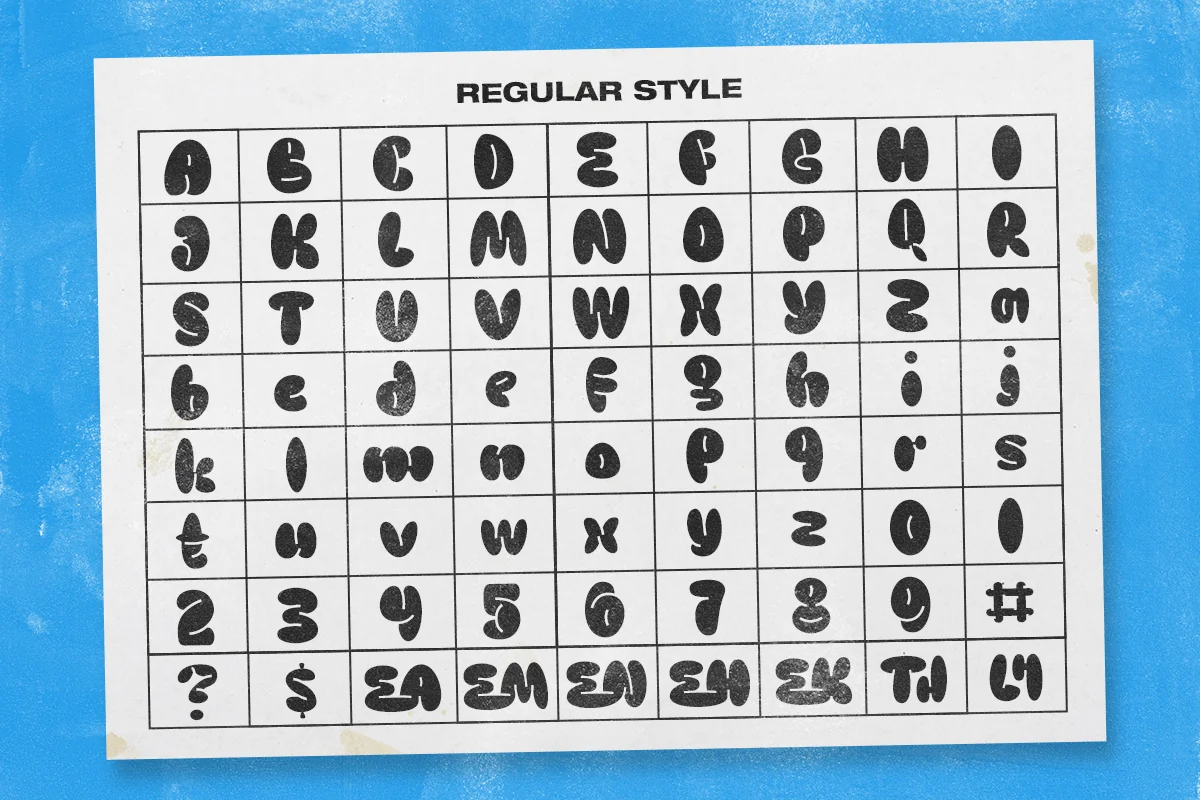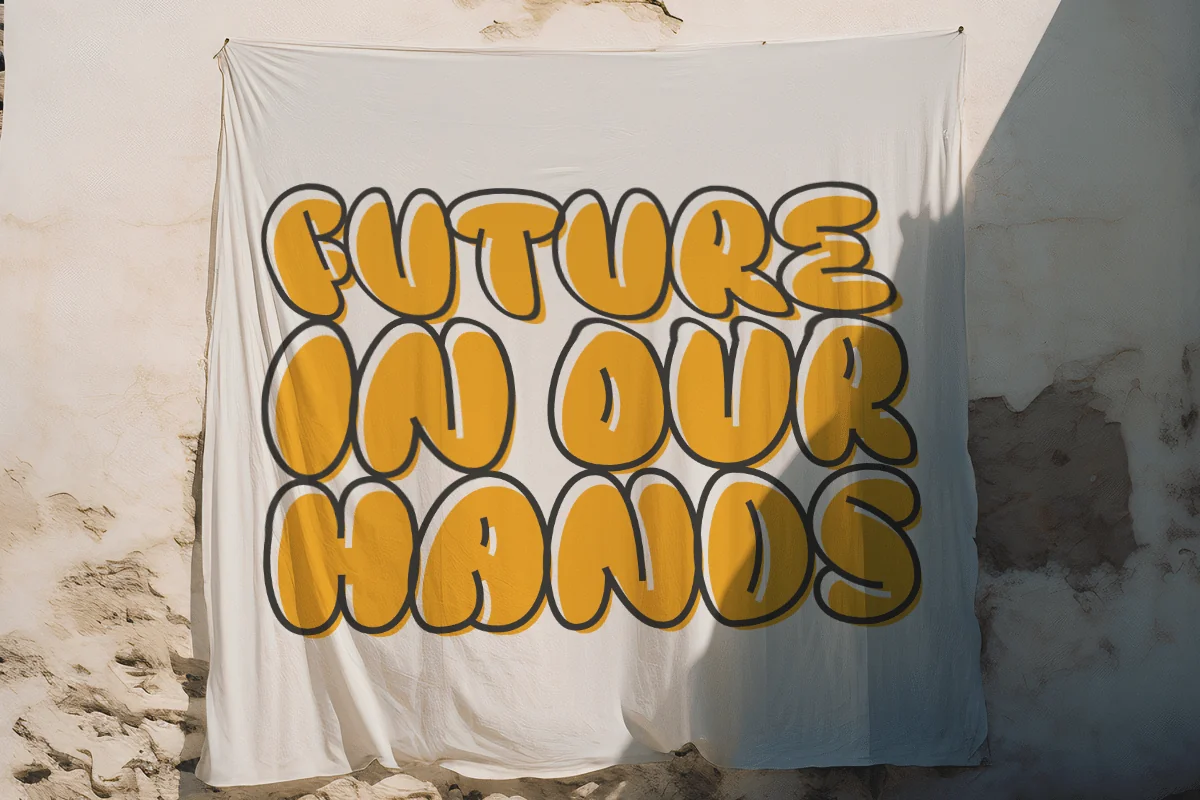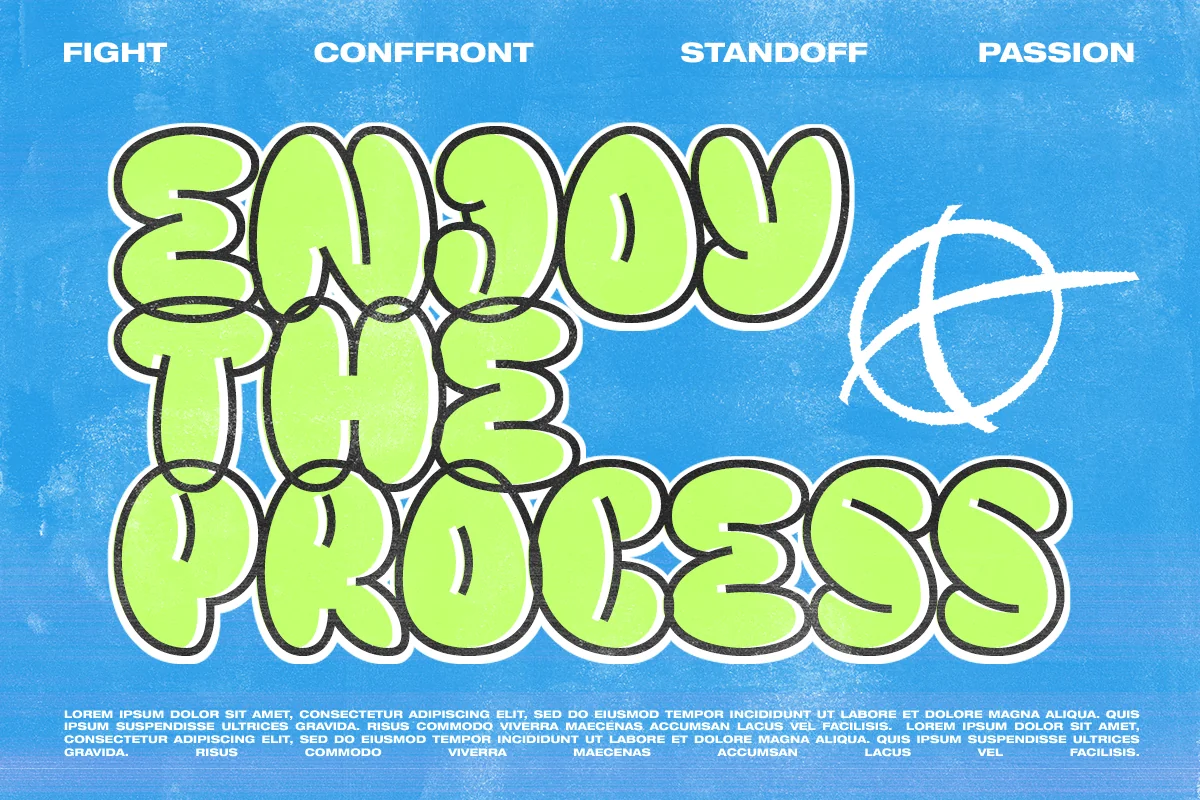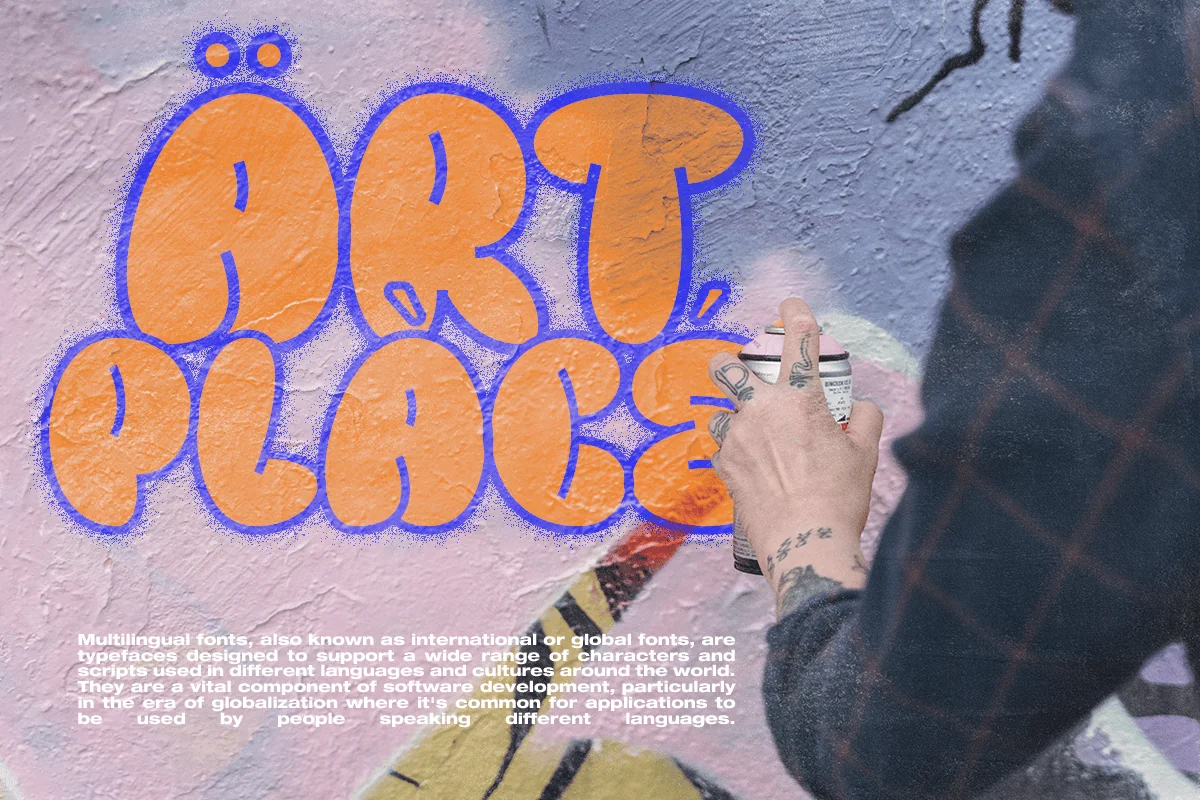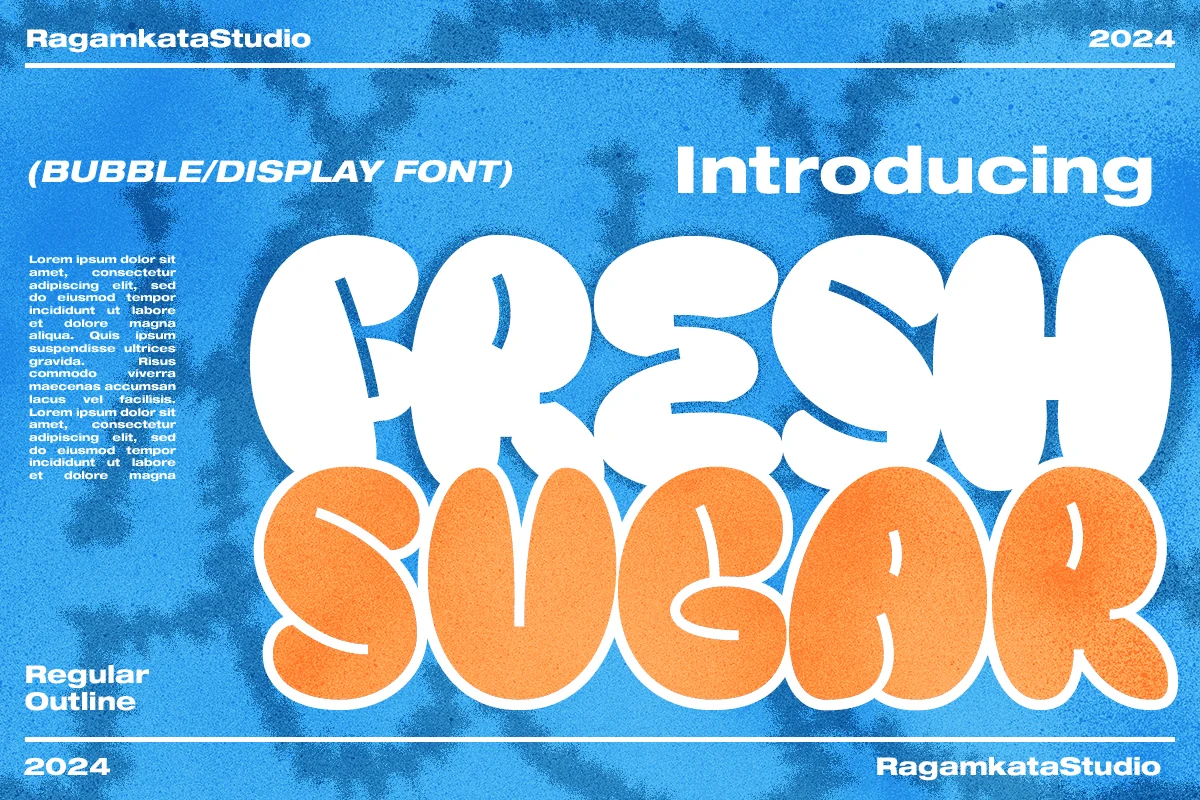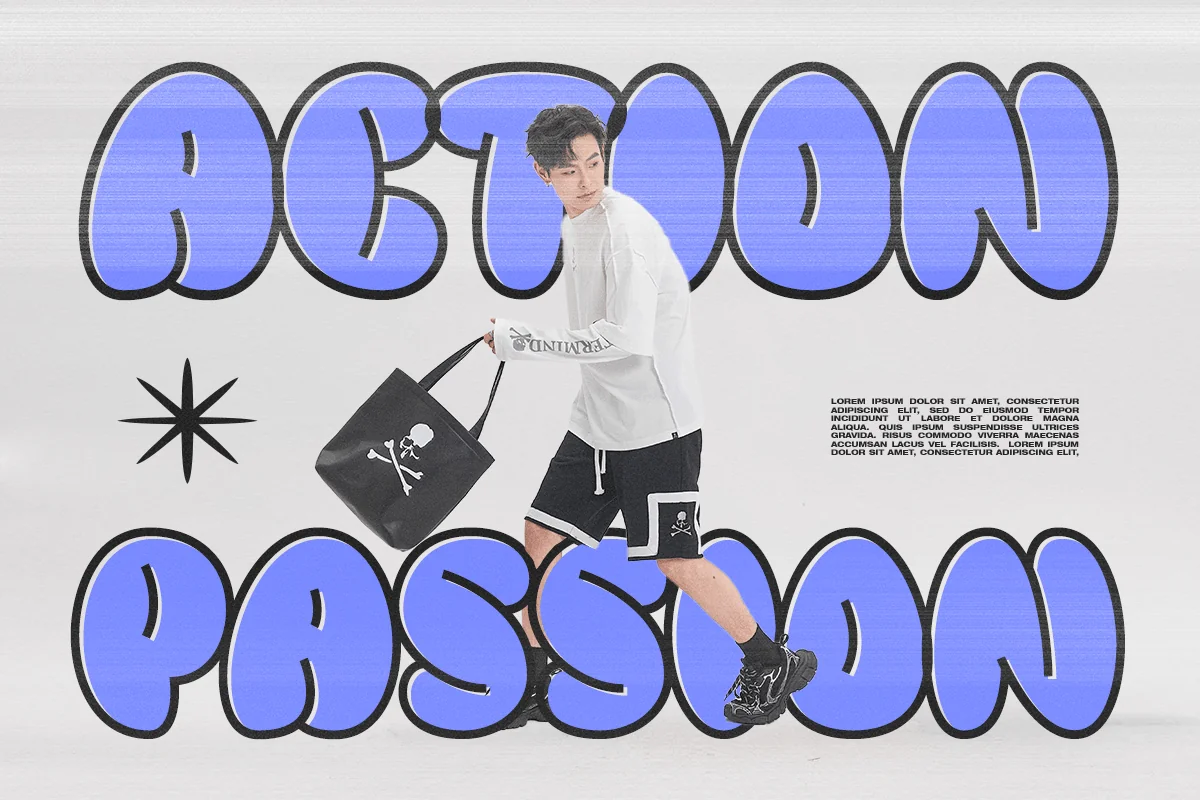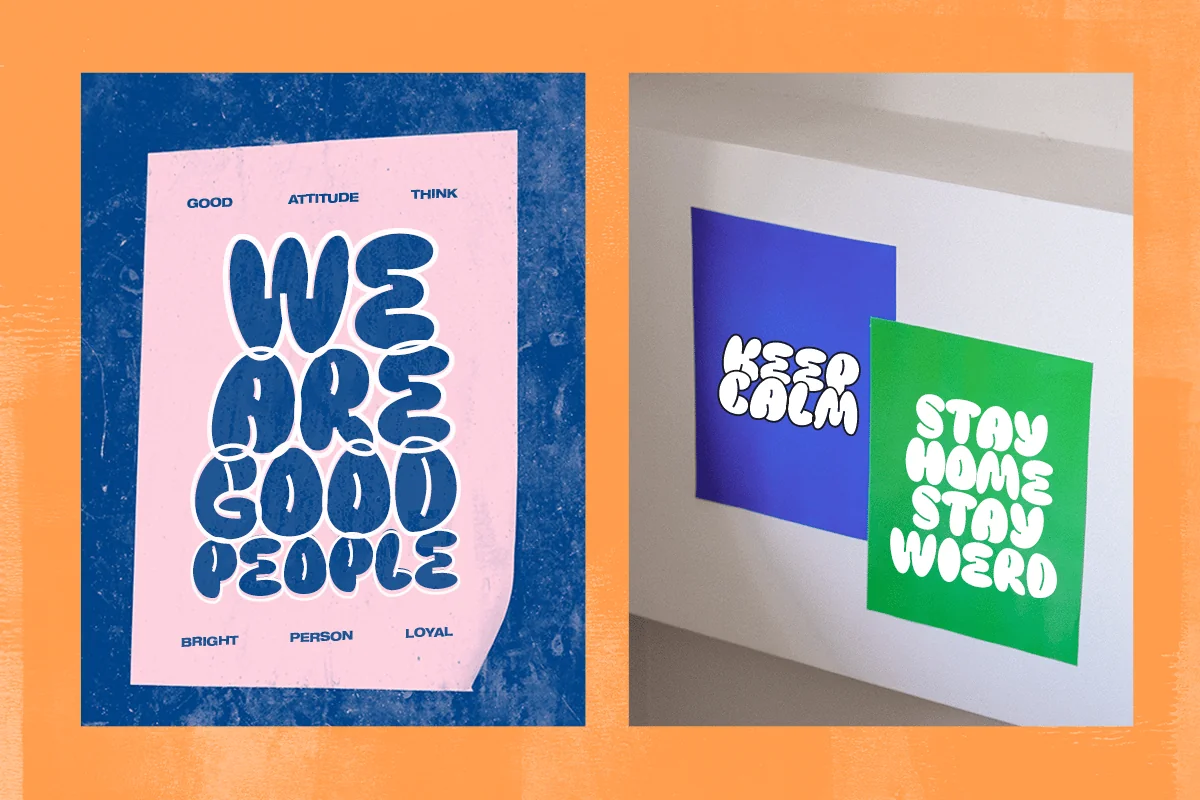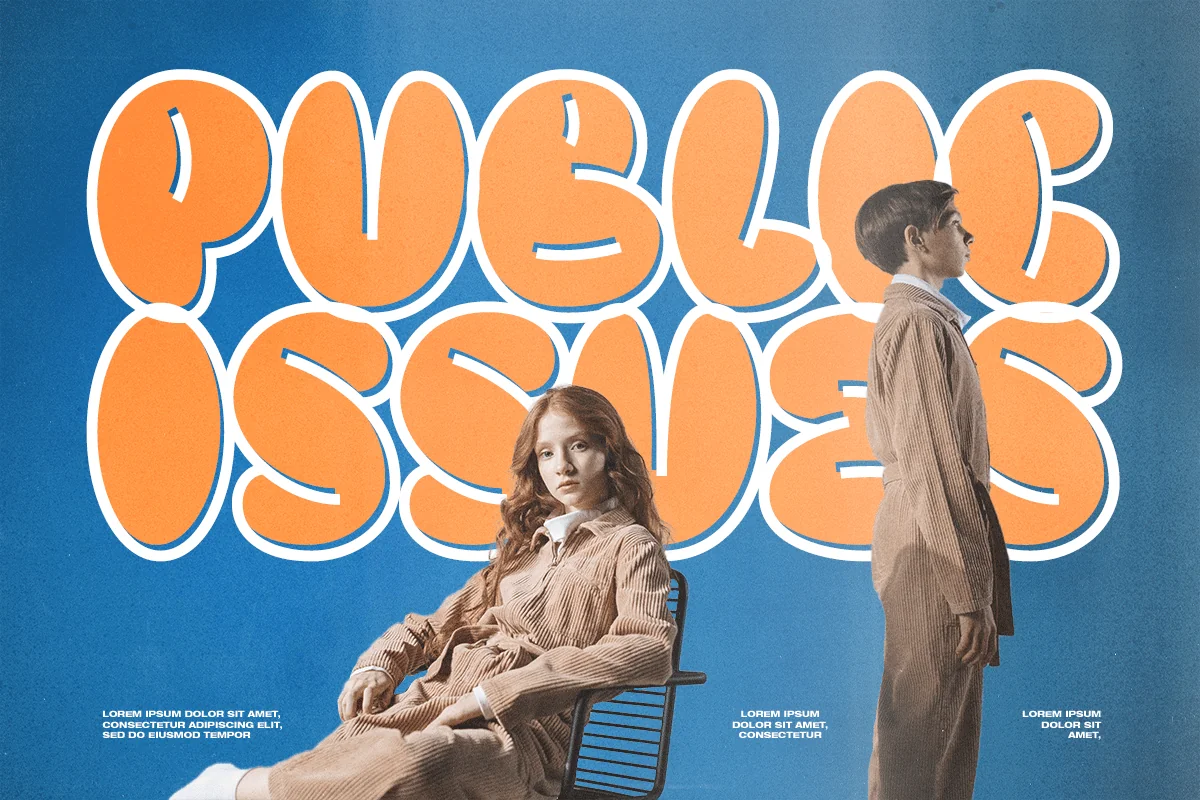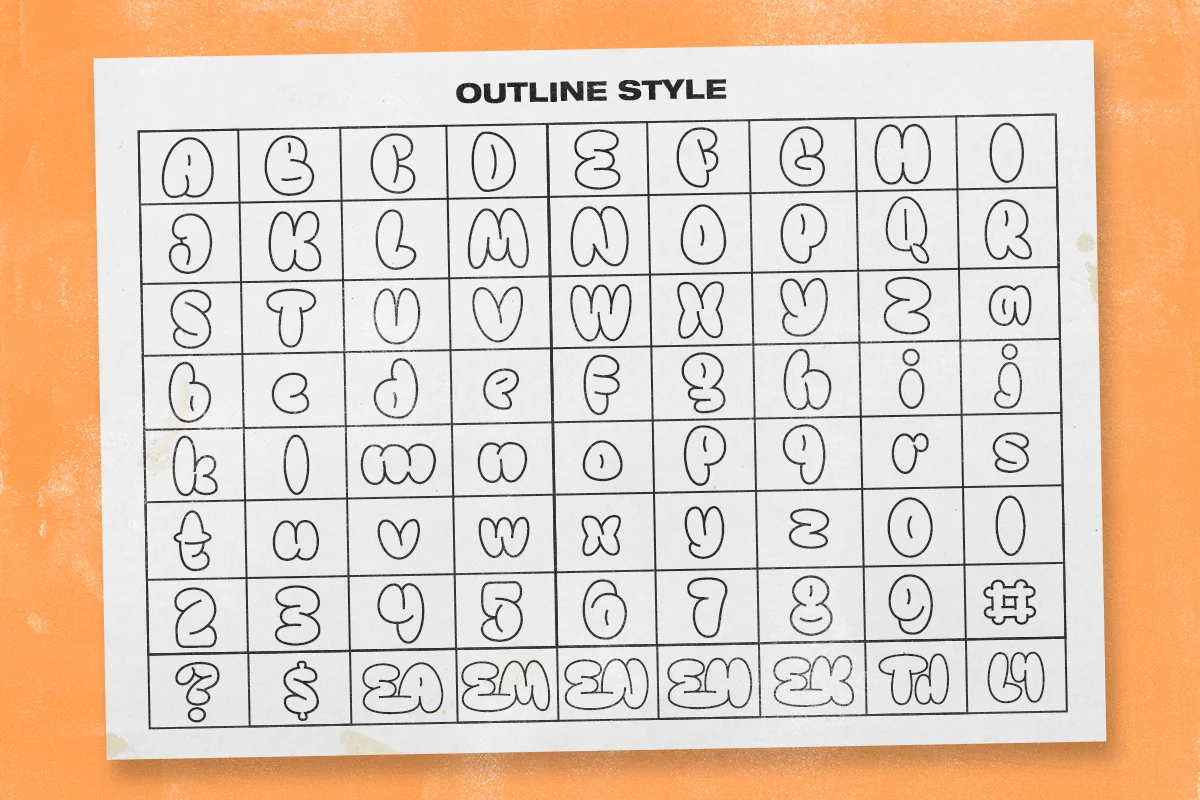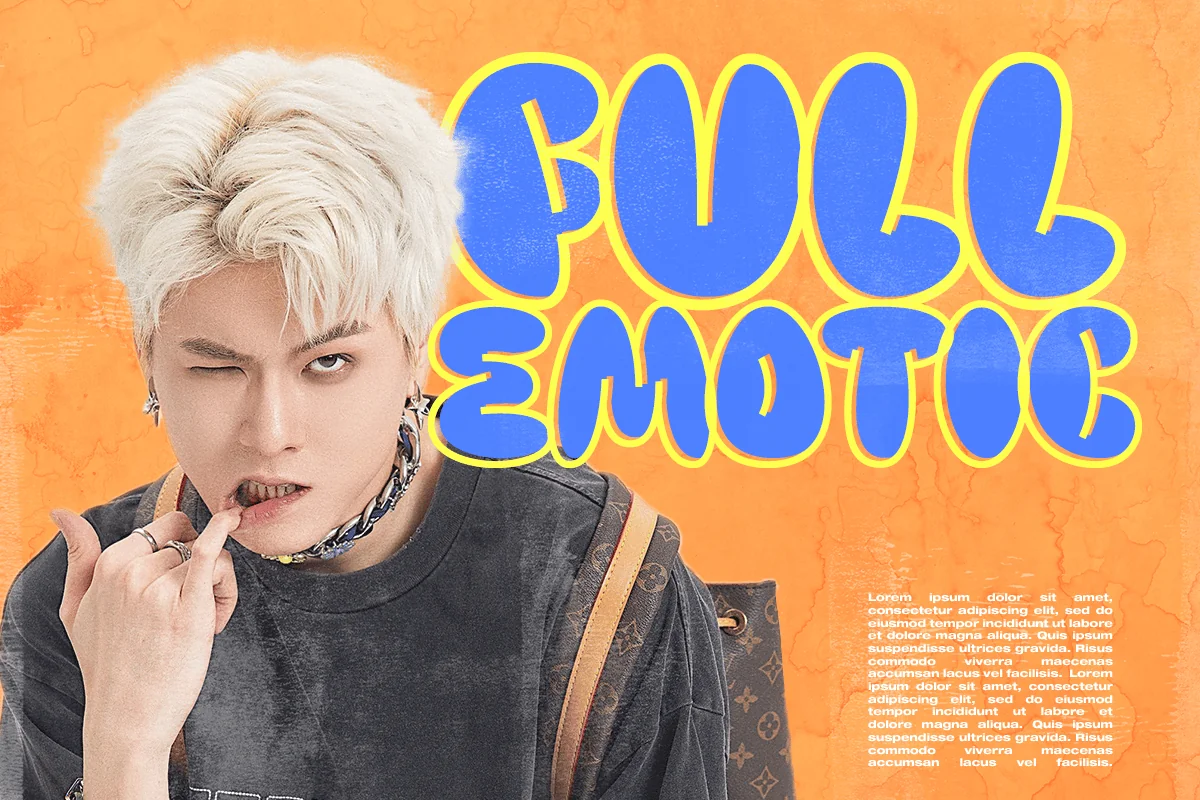
Fresh Sugar – Classic Bubble Font
Fresh Sugar takes the classic bubble font style and adds a groovy flair, creating a unique and eye-catching visual language.
The rounded, plump letters bring a sense of joy and playfulness to any design, captures the essence of freshness with its vibrant and lively aesthetics. It’s like a burst of creativity and positivity in every letterform. Ideal for a range of design projects including posters, social media graphics, packaging, and more. Fresh Sugar adds a touch of sweetness to any creative endeavor.
- Ligatures & Alternates
- Letters, numbers, symbols, and punctuation